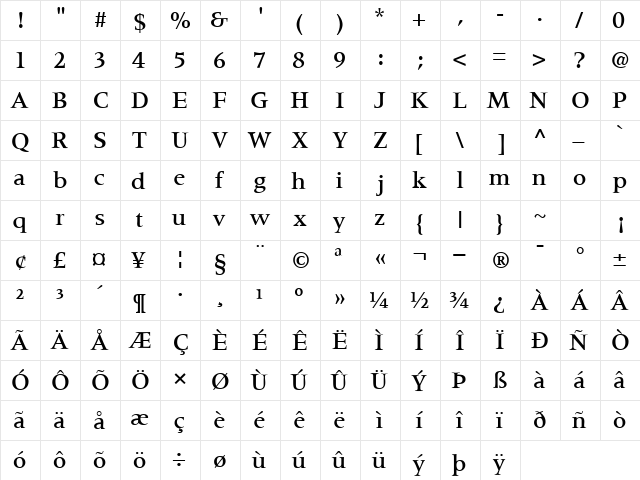
CoherentMediumSSK Regular Font Preview
CoherentMediumSSK Regular
CoherentMediumSSK Regular Font Details
Design Context for CoherentMediumSSK Typeface
CoherentMediumSSK is a composed and adaptable typeface that performs quietly and consistently across a wide range of design contexts.